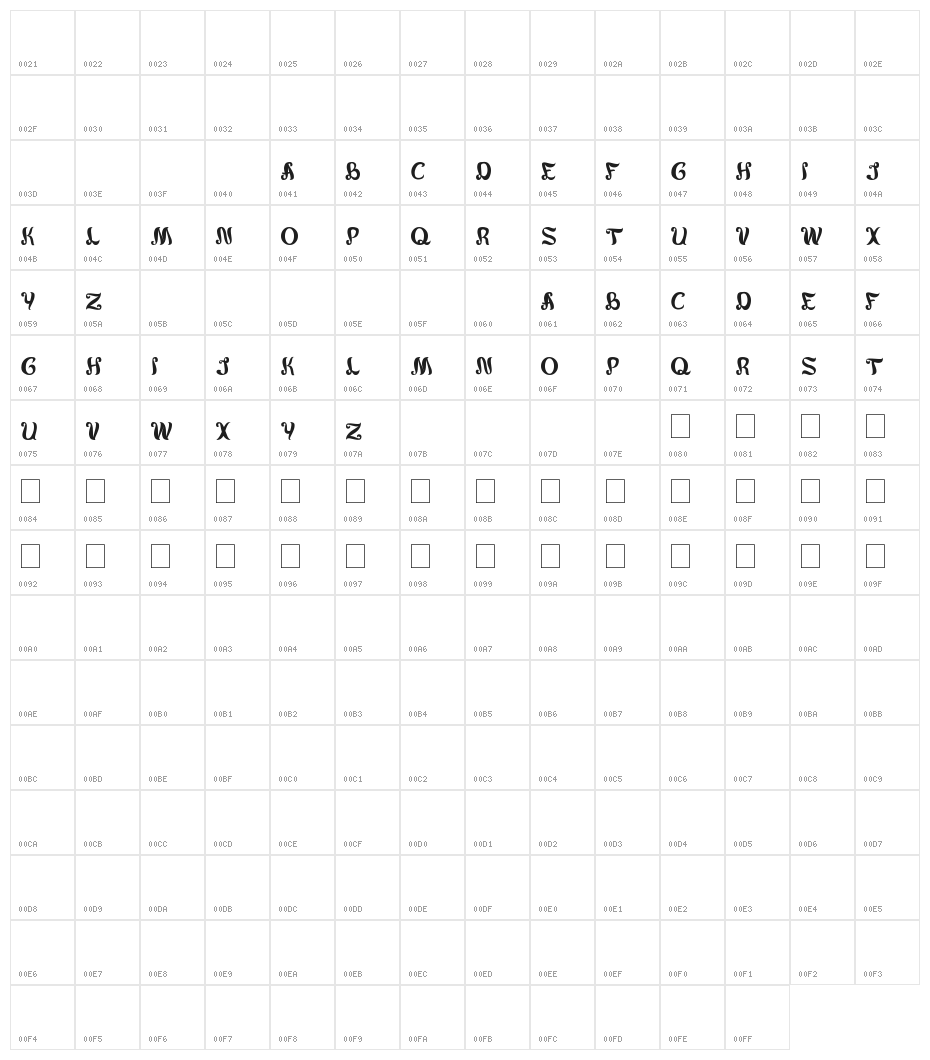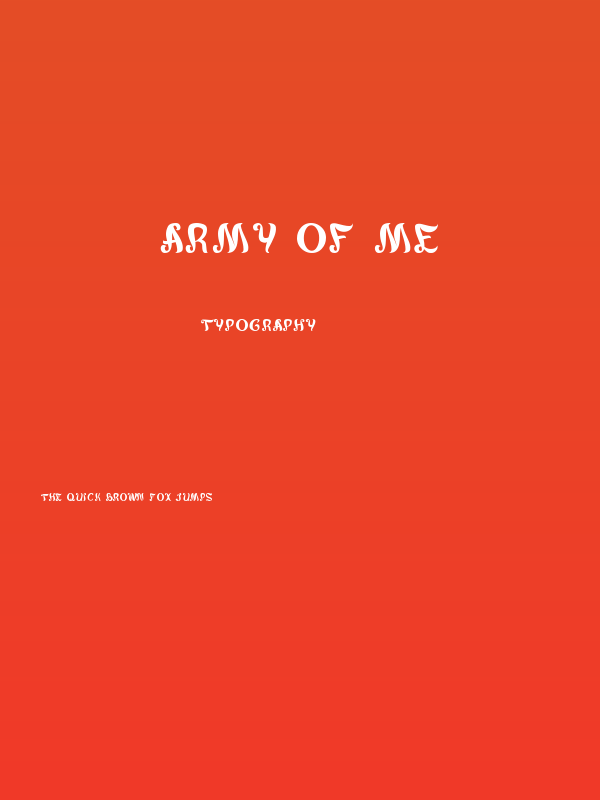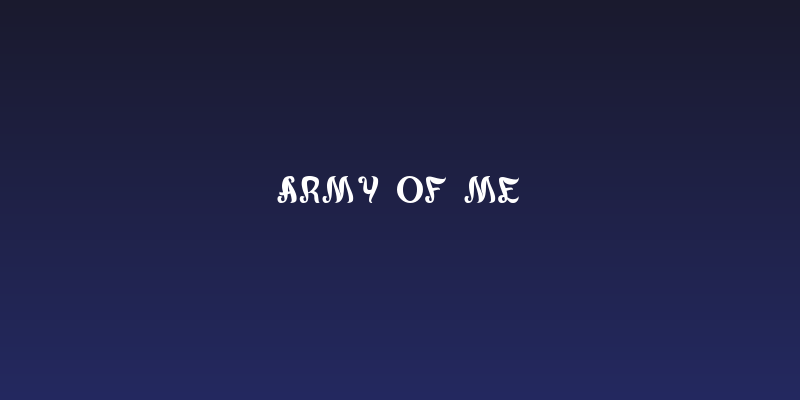
army of me Font
army of me Description
This font features a unique and decorative style with bold, swirling strokes and playful embellishments. Each character is adorned with small, rounded accents that give the font a whimsical and artistic flair. The uppercase letters are particularly striking, with exaggerated curves and loops that create a sense of movement and energy. The overall design is reminiscent of vintage or retro styles, yet it maintains a modern twist with its clean lines and balanced proportions. This font is ideal for projects that require a touch of creativity and personality, such as branding, posters, or artistic displays.
| Use Case | Logos, Headlines, Artistic Displays |
| Proposed Projects | Ideal for branding, artistic posters, and creative displays. |